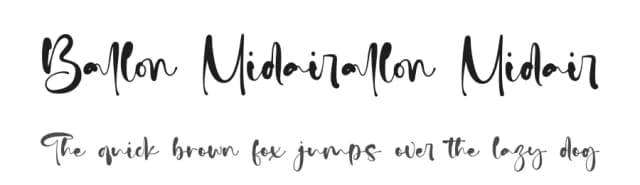
About Salt Debris Font
Salt Debrish is a display font designed to bring your branding to life and add a touch of elegance, cheerful,and style. We are hoping that through this playful font, you can maximize your designs! In turn, youΒll
communicate the perfect idea to your audiences or clients. The best choice for branding projects, book/magazine cover, fashion designs, quotes, packaging, or even as a stylish text overlay to any background
image.
Salt Debris Specifications
| Designer | Donis Miftahudin |
Salt Debris ships with 3 OpenType features you can switch on in apps that support them (Illustrator, InDesign, Affinity, Figma, CSS font-feature-settings).
Salt Debris Font is a script font that shines as a display or heading face. Pair it with a clean sans-serif or serif font for body text β the contrast creates a clear hierarchy while the two styles stay balanced and easy to read.
Salt Debris Font
by Din Studio